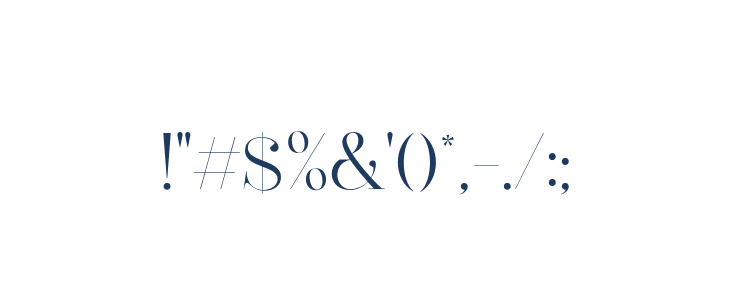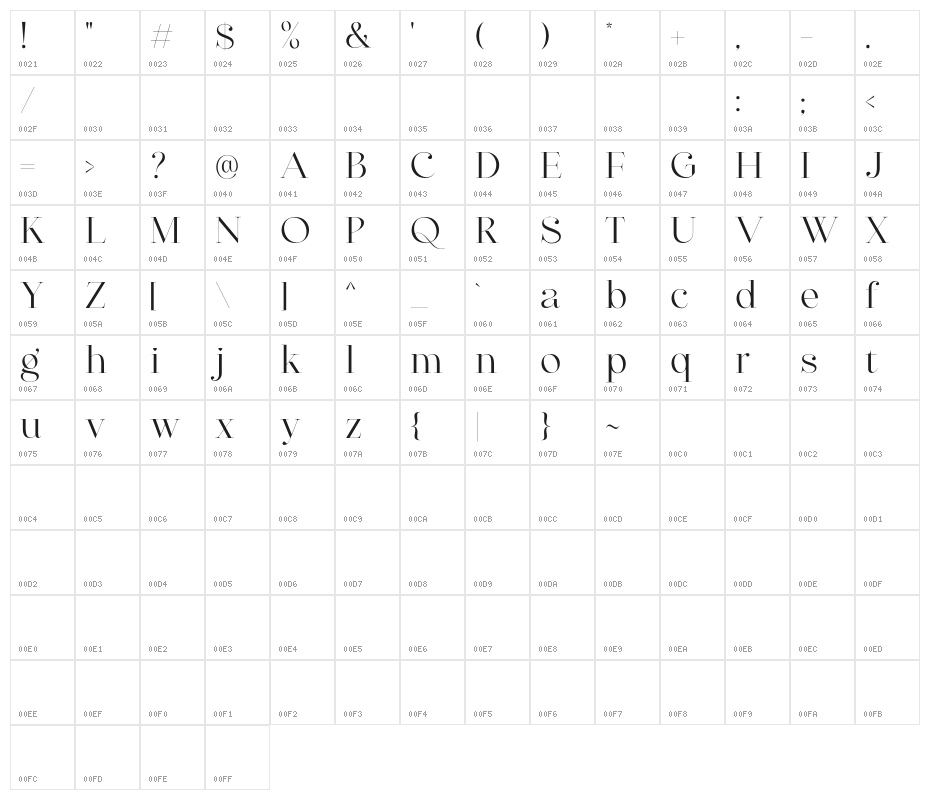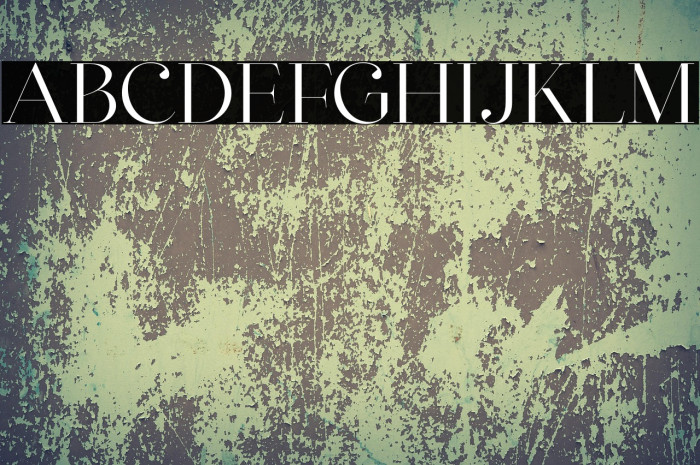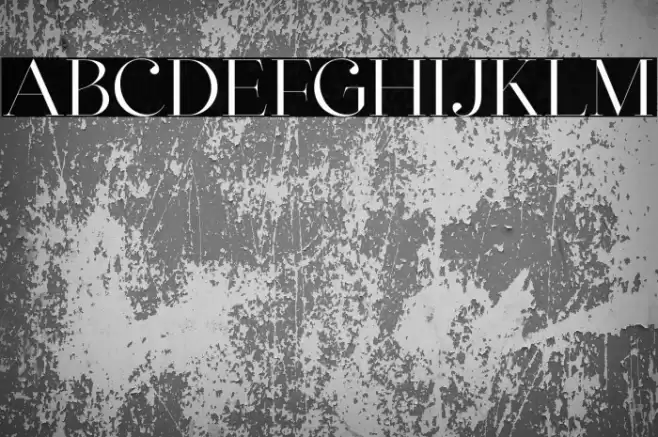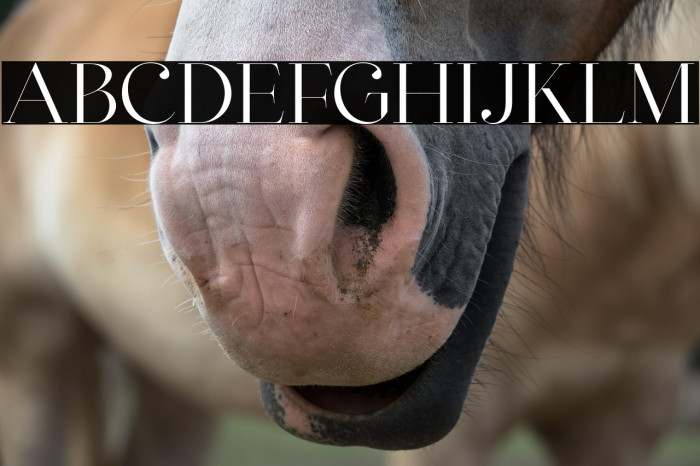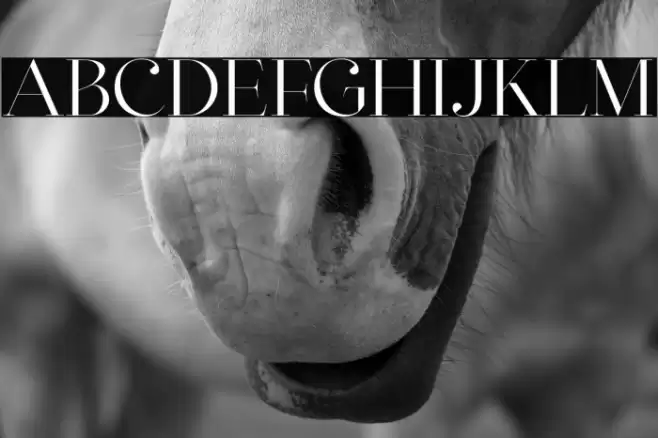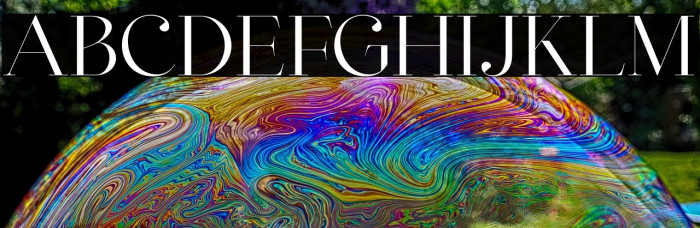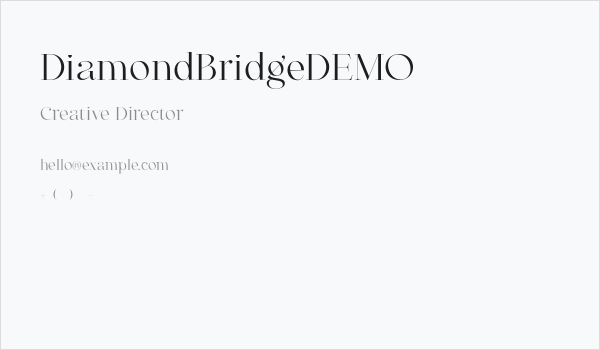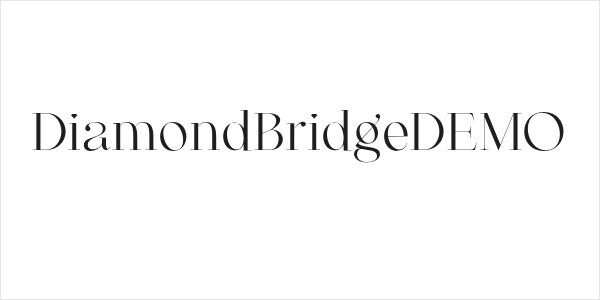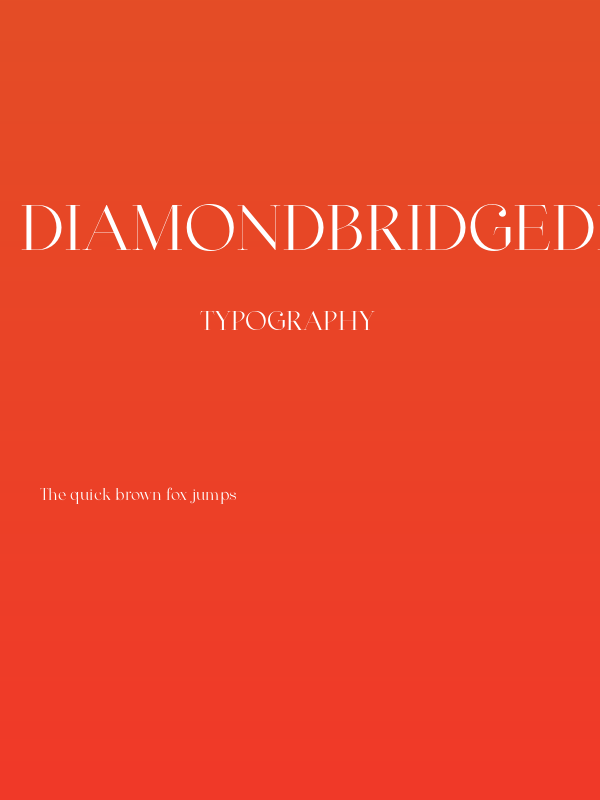
DiamondBridgeDEMO Font
DiamondBridgeDEMO Description
This font features a sophisticated and elegant design, characterized by its high contrast between thick and thin strokes. The serifs are sharp and pronounced, giving it a classic yet modern appeal. The uppercase letters are tall and commanding, while the lowercase letters maintain a graceful flow. The numerals and special characters are designed with the same attention to detail, ensuring consistency throughout. This font is ideal for projects that require a touch of luxury and refinement, making it suitable for branding, editorial design, and high-end product packaging.
Overall StyleModern Classic
Use CaseHeadlines, Logos, Editorial Design
Proposed ProjectsIdeal for luxury branding, editorial design, and high-end product packaging.